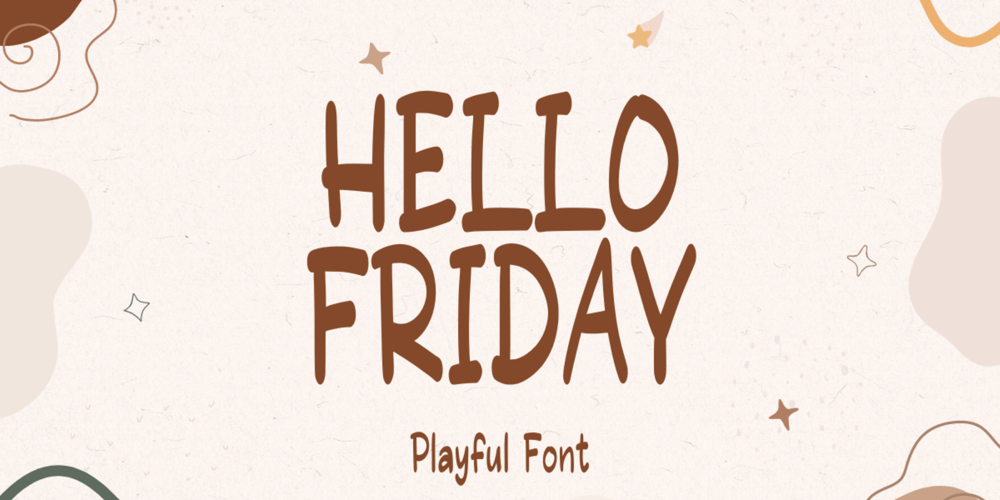
Hello Friday Font Family was designed by Muhammad Yafinuha and published by Letterayu Studio. Hello Friday contains 1 styles and family package options. **Hello Friday** is a Cute Playful Display font that will make your designs look unique and fun. It’s perfect for labels, quotes, posters, DIY projects, branding, packaging, greeting cards, websites, photography overlays, signs, window art, scrapbooking, tags and so much more!**What’s Included :**+ Standard glyphs+ Web Font+ Multilingual Accent+ Works on PC & Mac+ Simple installationsAccessible in the Adobe Illustrator, Adobe Photoshop, Adobe InDesign, even work on Microsoft Word. PUA Encoded Characters – Fully accessible without additional design software. Fonts include multilingual support+ Image used : All photographs/pictures/vector used in the preview are not included, they are intended for illustration purpose only._Thank You_